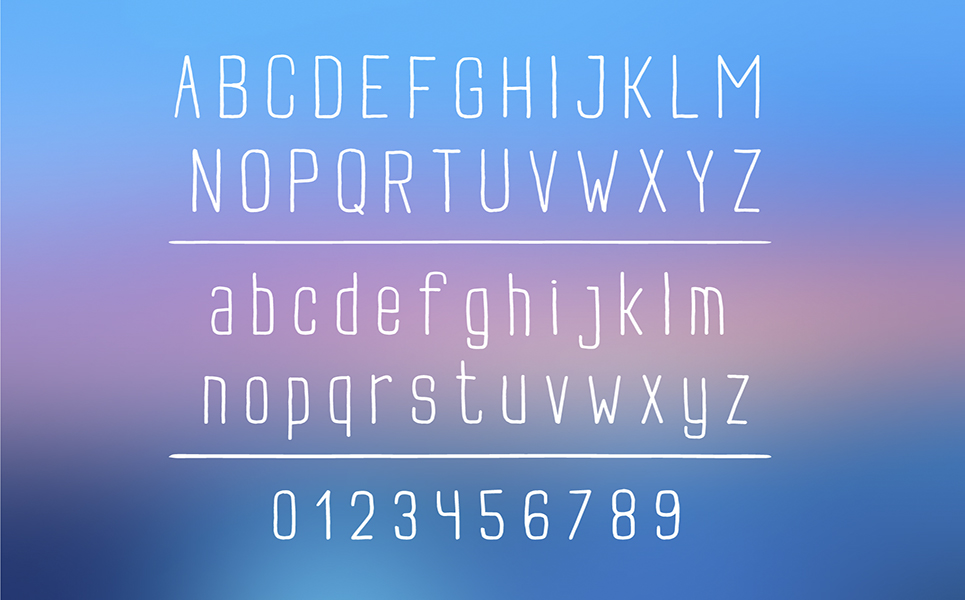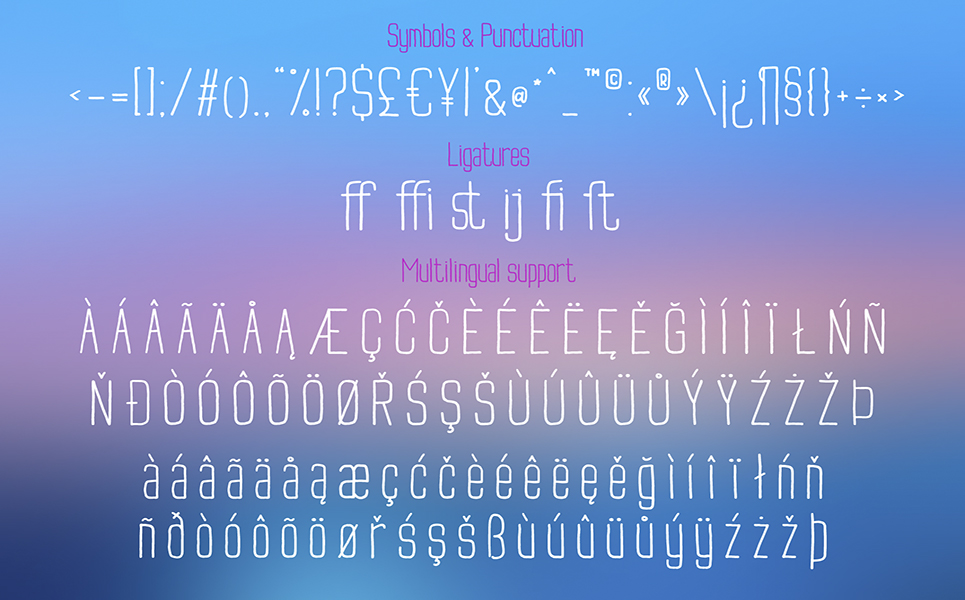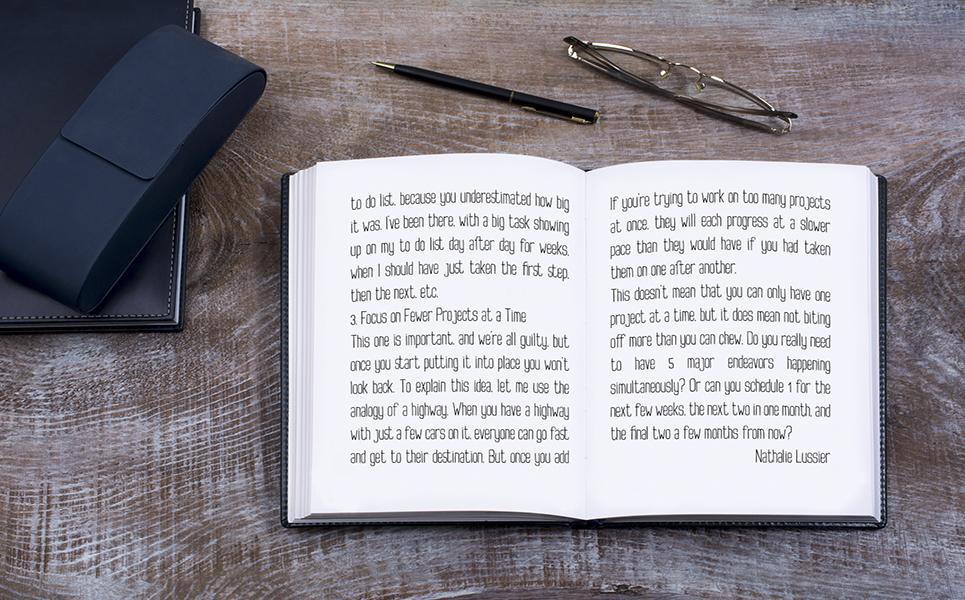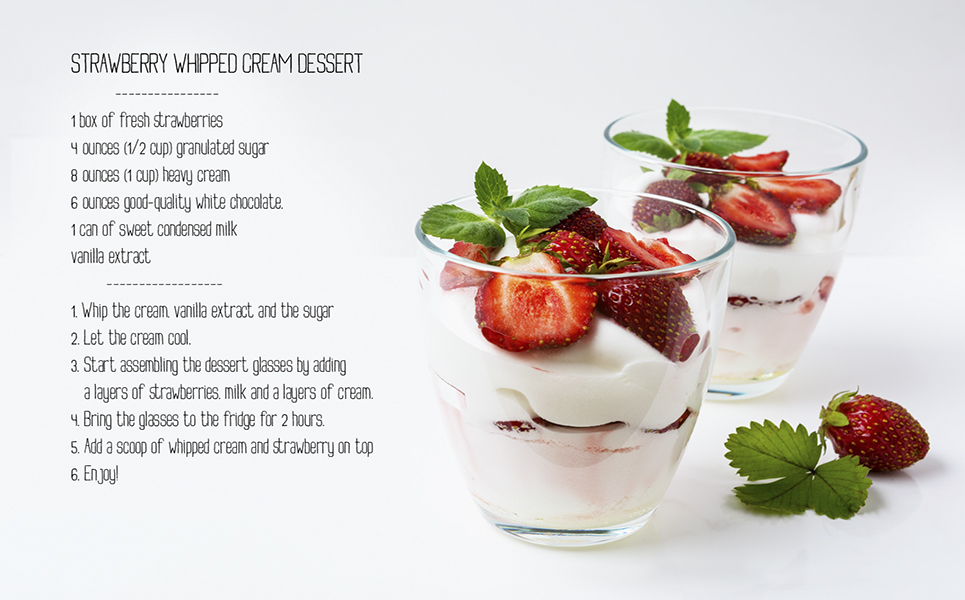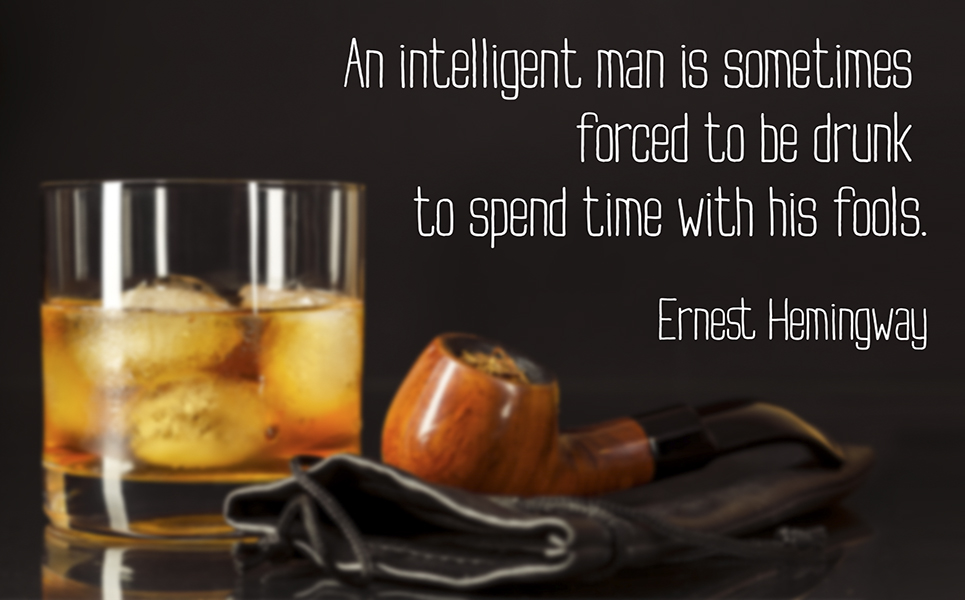
Buxton Font
Buxton is a minimalistic handwritten sans serif font that looks great on your design and branding products.
Contains standard characters, uppercase, lowercase, numbers, punctuation, symbols and ligatures.
Multilingual support (for languages using the basic Latin alphabet).